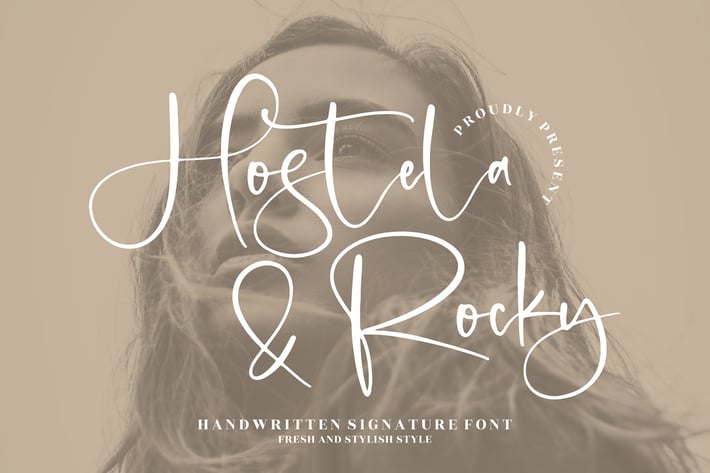
Hostela Rocky Handwritten Signature Font
Hostela Rocky is a fresh and stylish handwritten signature font designed to bring sophistication to your creative projects. With its elegant strokes and modern feel, this font is perfect for both personal and professional use, enhancing any design with a touch of class.
+ Stylish handwritten signature design
+ Regular & Italic styles included
+ Smooth curves with natural flow
+ High readability in both print and digital use
+ Branding and logo design
+ Social media posts & quotes
+ Invitations and greeting cards
+ Fashion & beauty projects
+ Personal blogs or portfolios
Add a personal, stylish touch to your designs with Hostela Rocky, the handwritten signature font that speaks elegance and creativity.